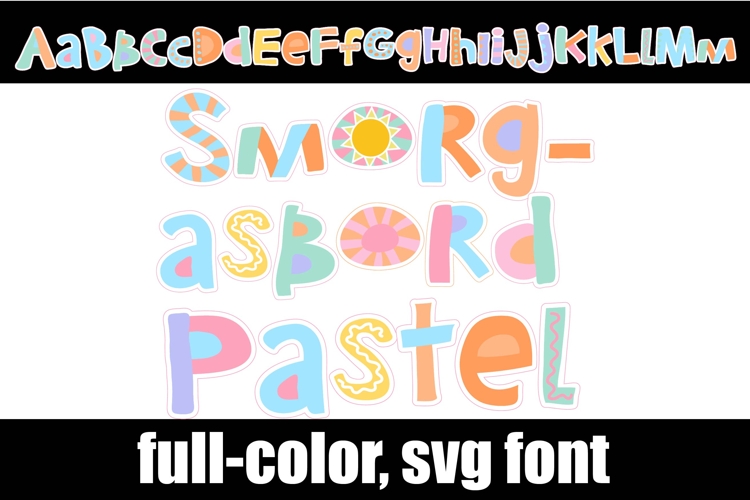
Smorgasbord Pastel Color Font
This full-color, sans serif in a pastel color palette is youthful and whimsical font. There is an alt case of additional colors of each letter that you can access through your system's character map.